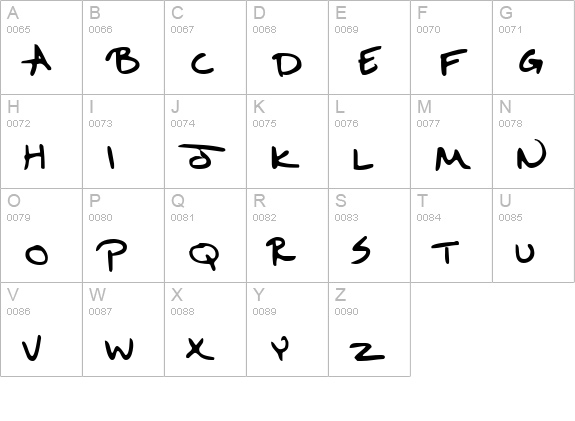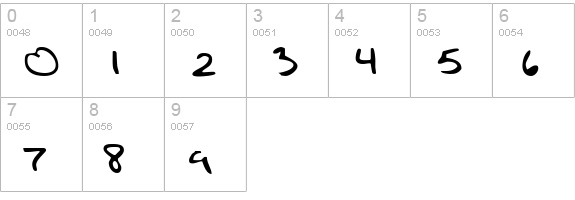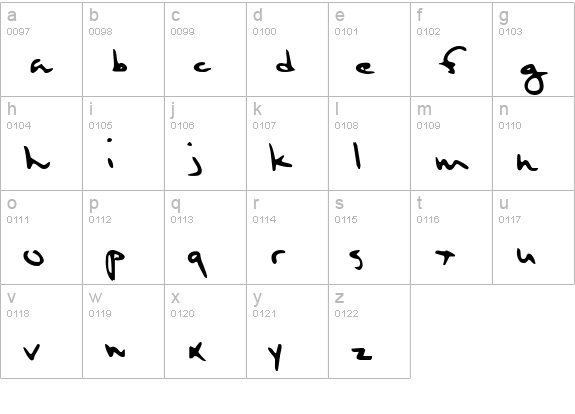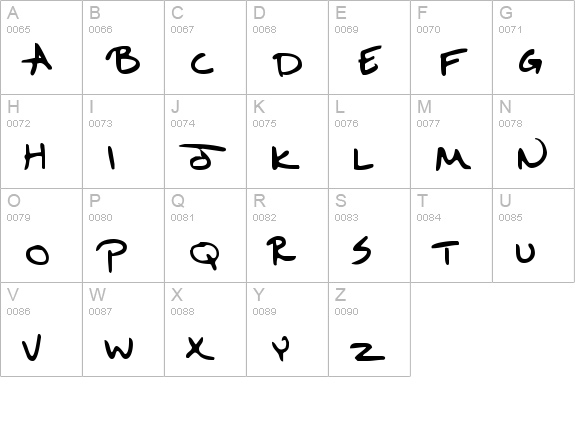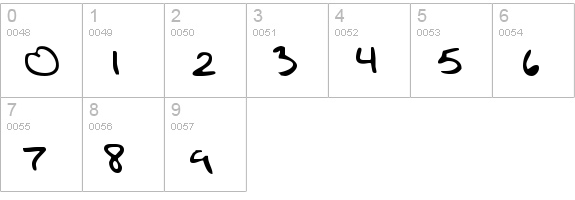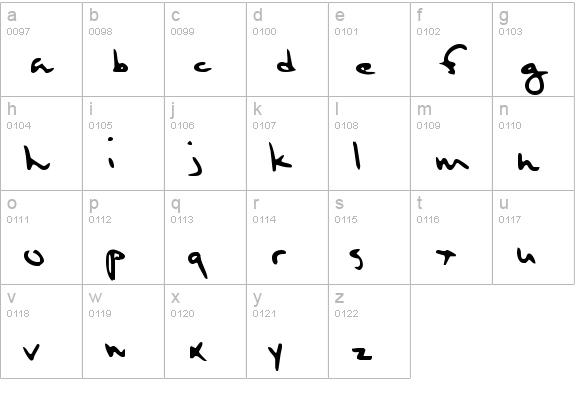
Sixth Kristen Squirt Font Details
Introducing the mesmerizing Sixth Kristen Squirt font, a true epitome of creativity and uniqueness. This font is the perfect blend of elegance and playfulness, making it a versatile choice for a wide range of design projects. With its charmingly quirky letterforms, Sixth Kristen Squirt adds a delightful touch to any text. Each character is carefully crafted with intricate details, resulting in a font that exudes a sense of handcrafted artistry. Whether used for branding, advertising, invitations, or any other creative endeavor, this font will instantly captivate the viewer's attention. One of the most exciting aspects of Sixth Kristen Squirt is that it is absolutely free. Yes, you read that right! This font is freely available to download at FontsMarket.com. Now you can add a touch of whimsy to your designs without breaking the bank. The versatility of Sixth Kristen Squirt is evident in its ability to adapt to various design themes. Whether you're aiming for a vintage-inspired look, a modern and edgy vibe, or anything in between, this font will effortlessly complement your vision. The legibility of Sixth Kristen Squirt is also worth mentioning. Despite its playful appearance, each character maintains a balanced form, ensuring optimal readability across different sizes and mediums. This makes it an ideal choice for both print and digital applications. So, why wait? Unleash your creativity and bring your designs to life with the enchanting Sixth Kristen Squirt font, freely available for download at FontsMarket.com. Whether you're a seasoned designer or just starting out, this font will undoubtedly add that extra touch of magic to your projects.